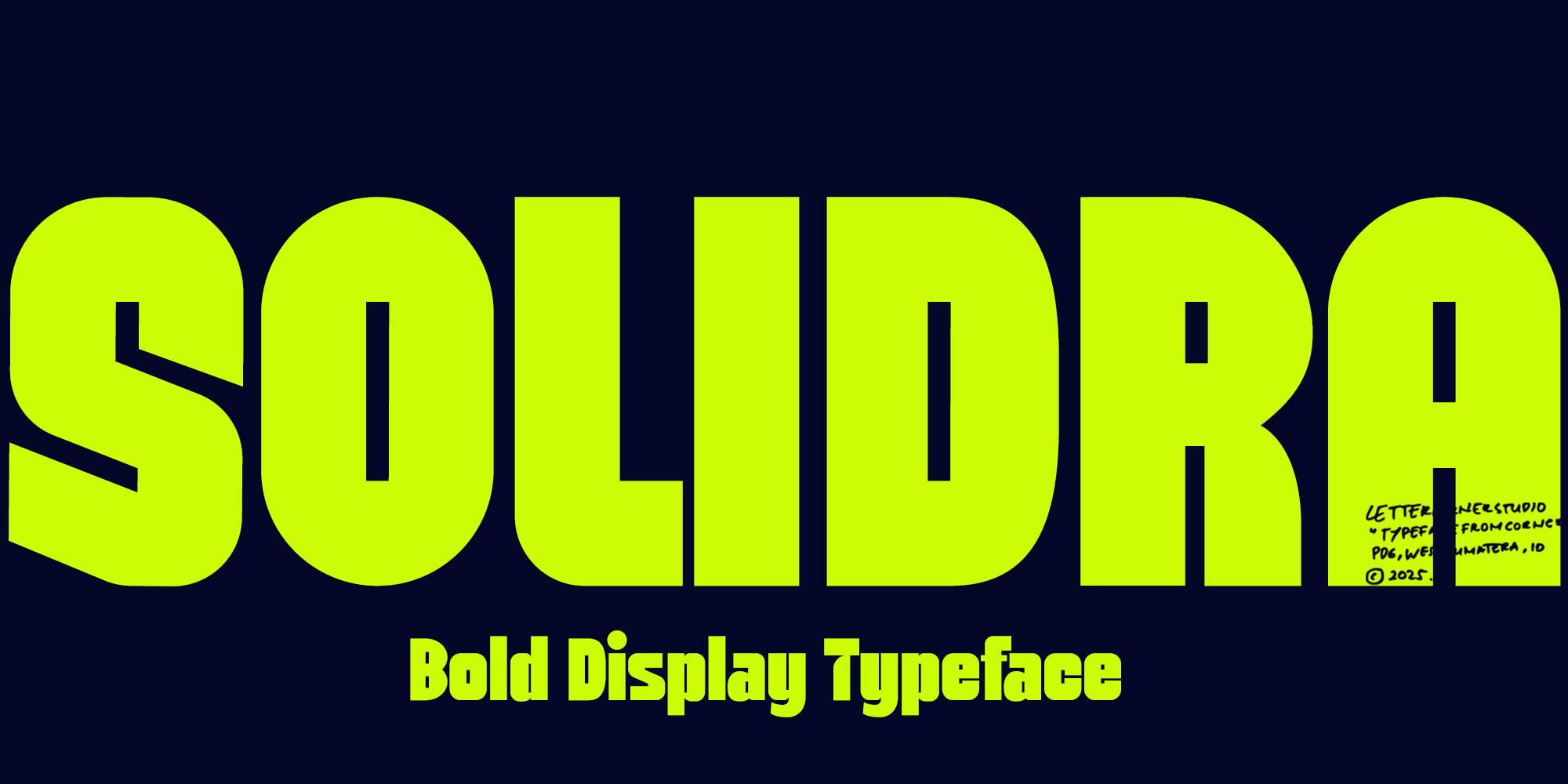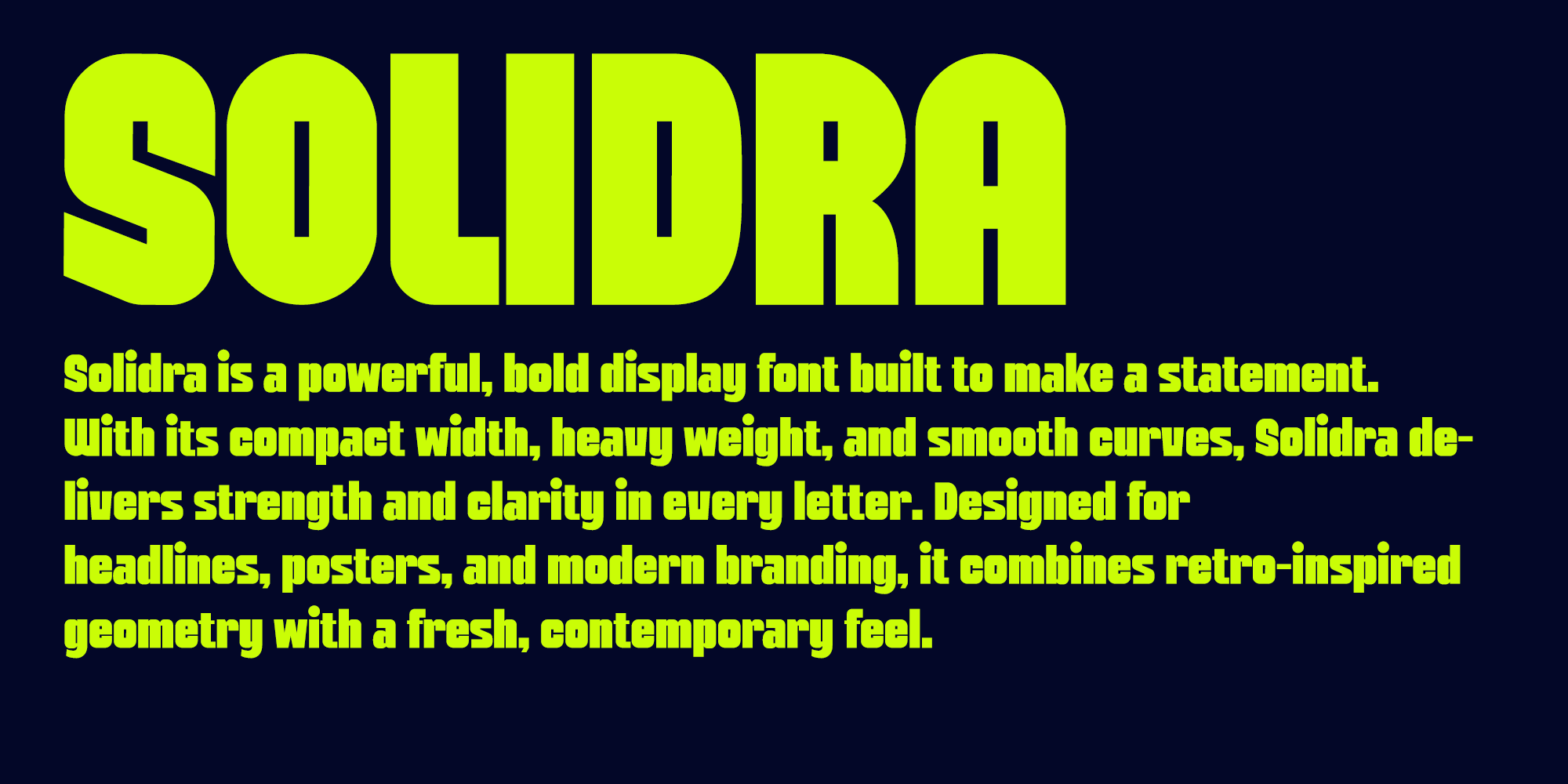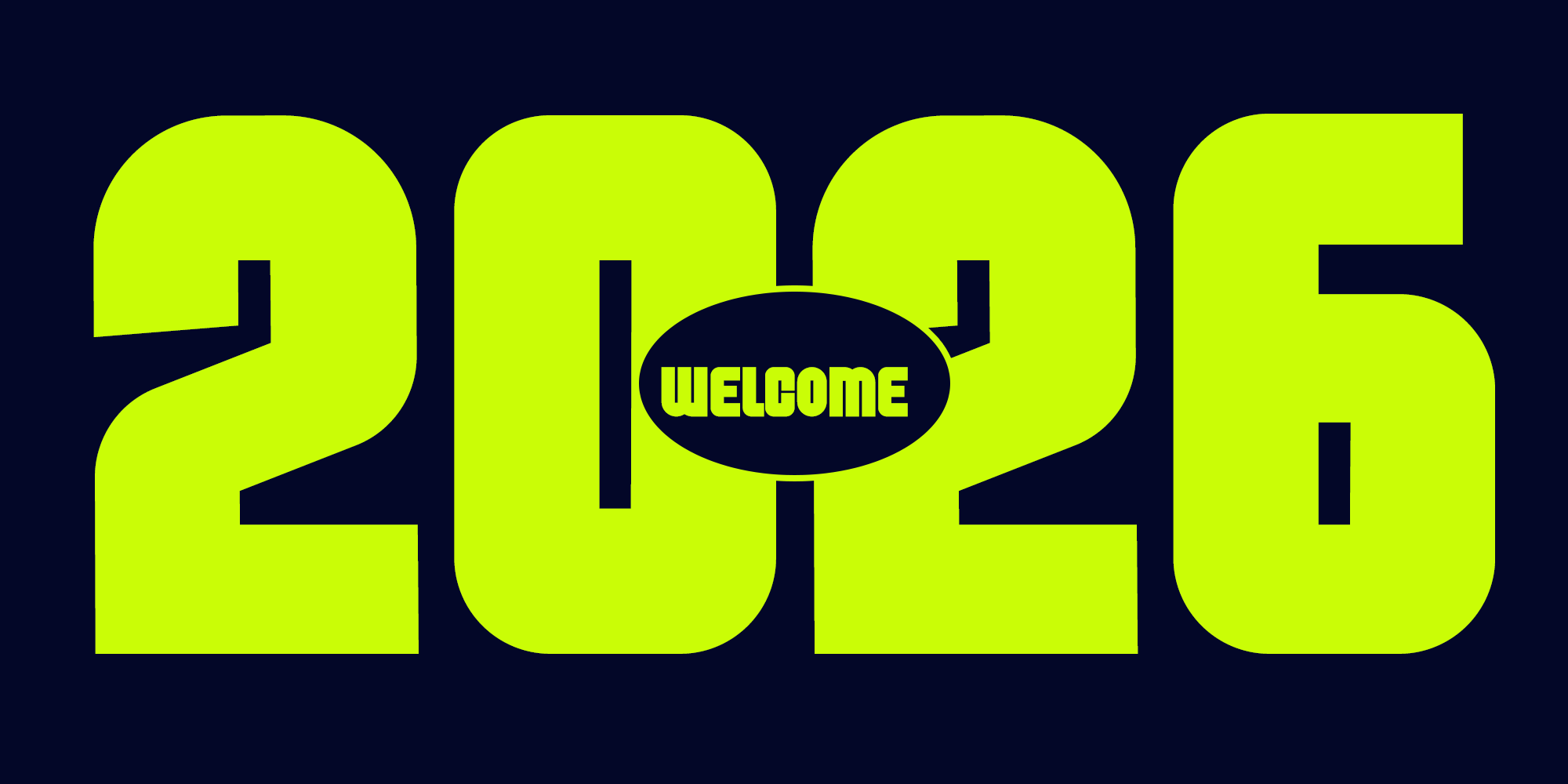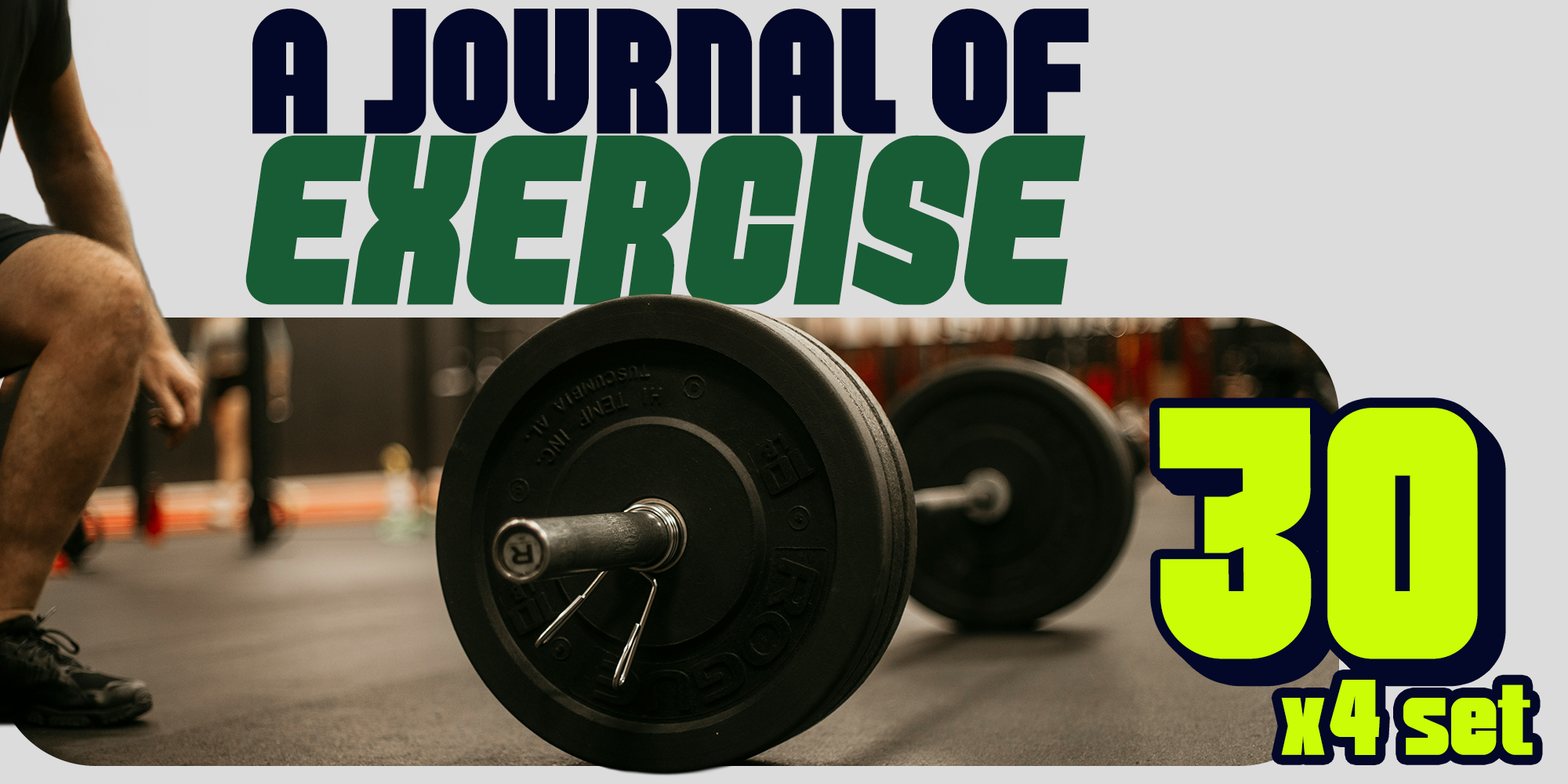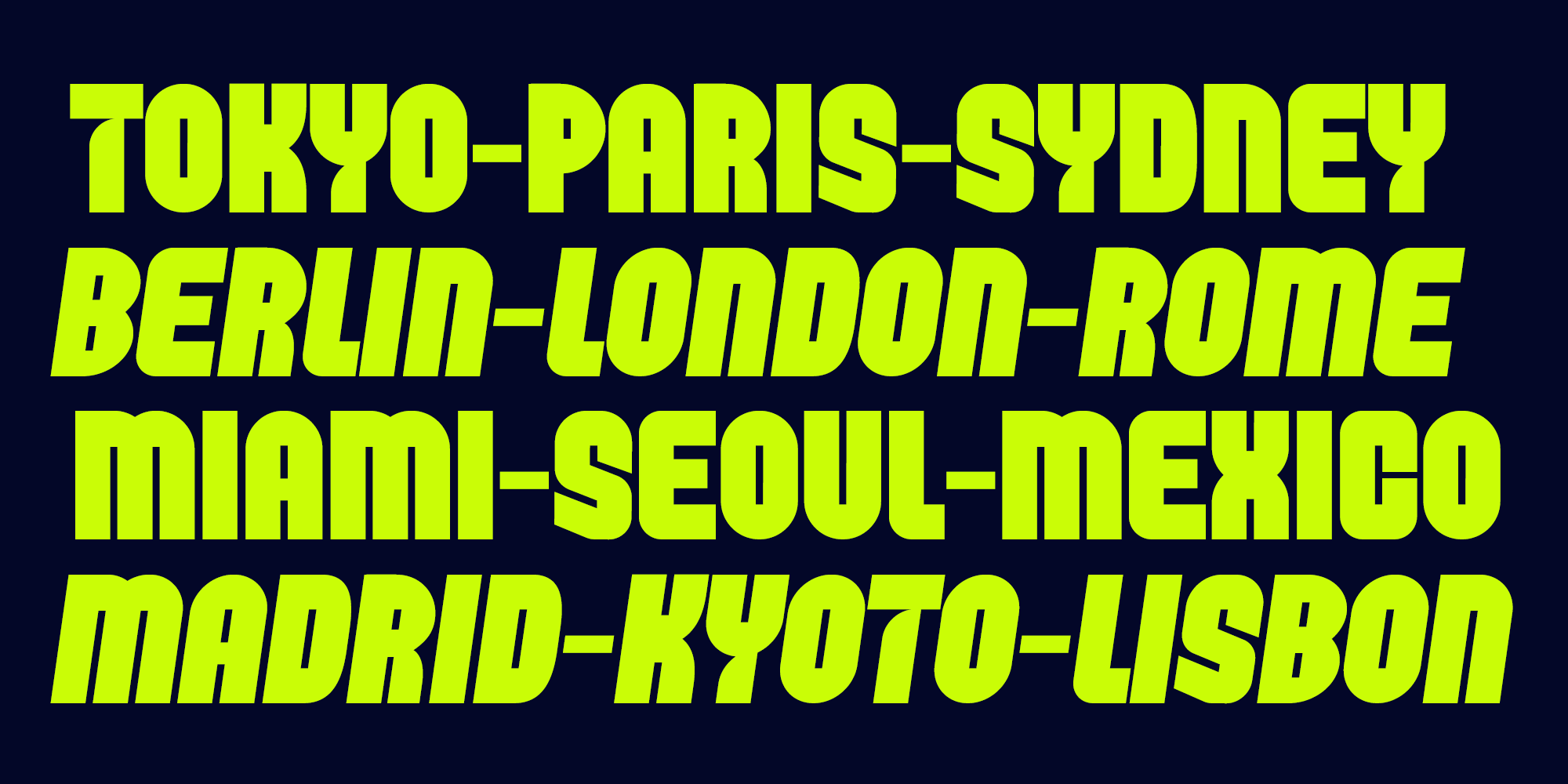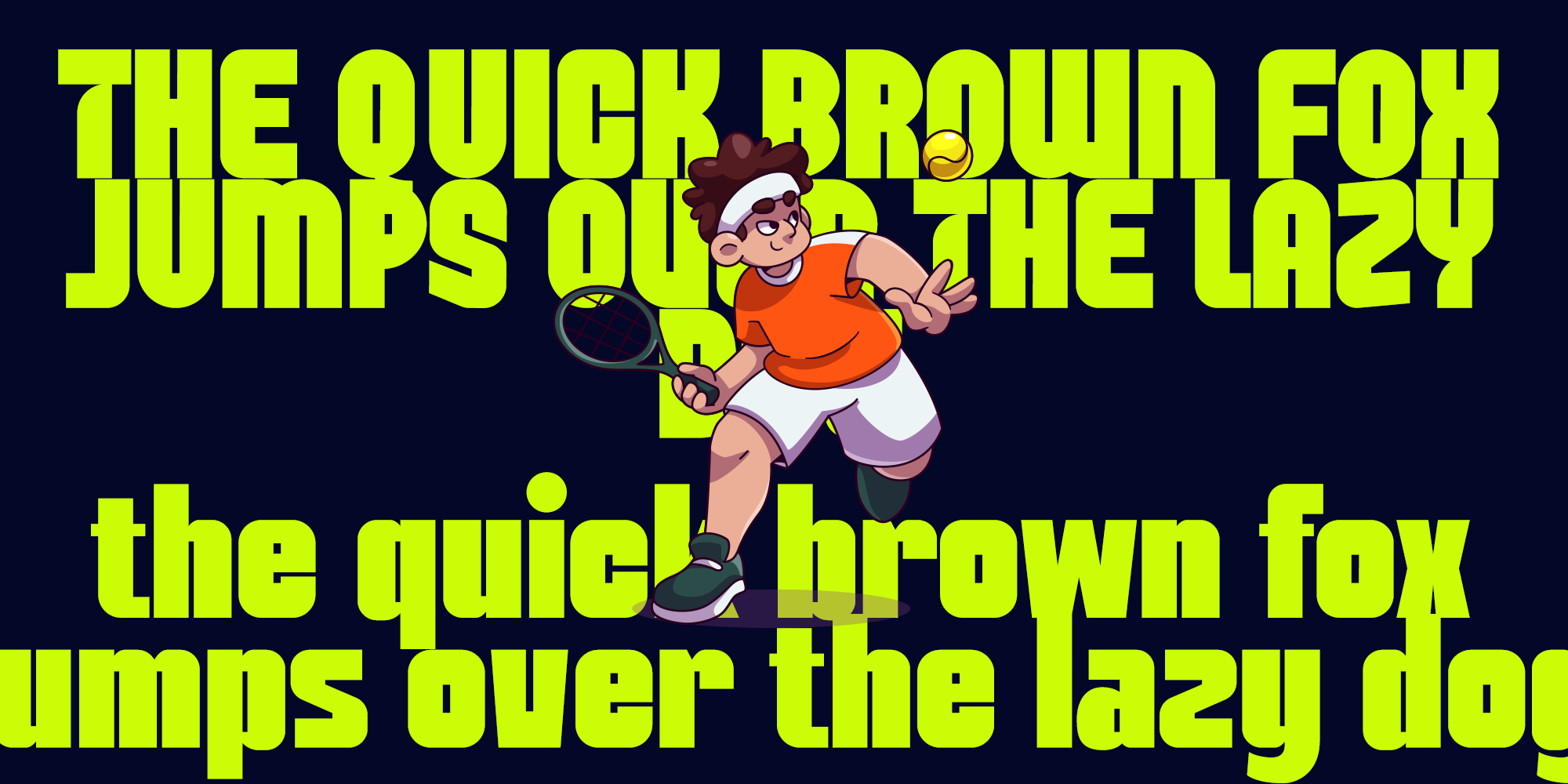
Solidra | Bold Display Font
Solidra – Bold Display Typeface
Solidra is a powerful, bold display font built to make a statement.
With its compact width, heavy weight, and smooth curves, Solidra delivers strength and clarity in every letter. Designed for headlines, posters, and modern branding, it combines retro-inspired geometry with a fresh, contemporary feel.
Every stroke of Solidra is crafted to hold attention — perfect for designs that demand confidence, impact, and visual dominance.
Features:
• Uppercase & lowercase letters
• Numbers & punctuation
• Smooth rounded edges for a balanced look
• Ideal for posters, branding, packaging, and typographic compositions
Style: Bold / Rounded / Display / Modern Retro